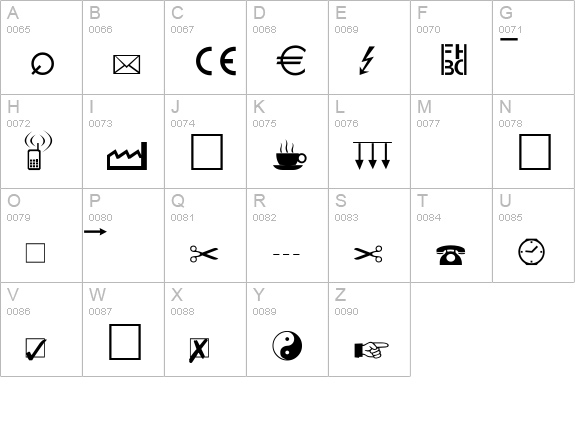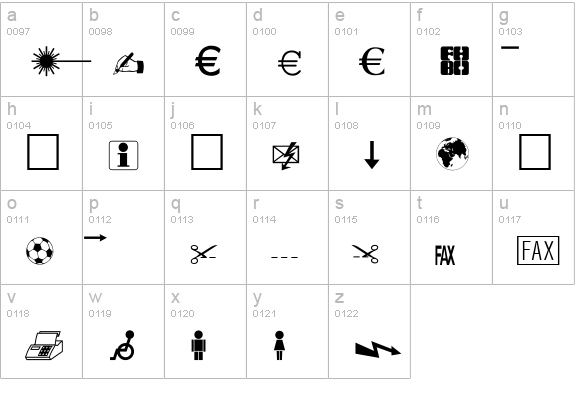
Martin Vogel's Symbols Font Details
Martin Vogel's Symbols font is a remarkable display of creativity and innovation. This captivating font is designed to add a touch of elegance and uniqueness to any project, making it suitable for a wide range of applications. With a vast collection of symbols, icons, and graphical elements, this font truly stands out in the crowd. What sets Martin Vogel's Symbols font apart is its versatility and ease of use. Whether you're working on a graphic design project, a website, or even a presentation, this font offers an extensive array of symbols to complement your ideas and bring them to life. From basic shapes to intricate designs, this font covers it all, allowing you to fully express your creativity and capture the attention of your audience. One of the most appealing aspects of Martin Vogel's Symbols font is that it is freely available to download at FontsMarket.com. This means that you can access this stunning font without any hassle or cost, making it an ideal choice for both personal and commercial use. With its seamless compatibility across various platforms and software, you can easily incorporate this font into your projects and enjoy its captivating impact. The attention to detail in Martin Vogel's Symbols font is truly commendable. Each symbol is intricately crafted, ensuring precision and clarity in every character. The font's smooth lines and clean design make it visually appealing and easy to read, ensuring that your message is delivered effectively. Whether you're designing a logo, creating a poster, or enhancing your website's user interface, Martin Vogel's Symbols font is the perfect tool to elevate your creations. Its unique combination of elegance, versatility, and functionality makes it a must-have for designers, artists, and enthusiasts alike. Download Martin Vogel's Symbols font today from FontsMarket.com and unlock a world of creative possibilities. Explore the vast collection of symbols and let your imagination run wild. With this font by your side, you'll be able to create visually stunning and impactful designs that leave a lasting impression.